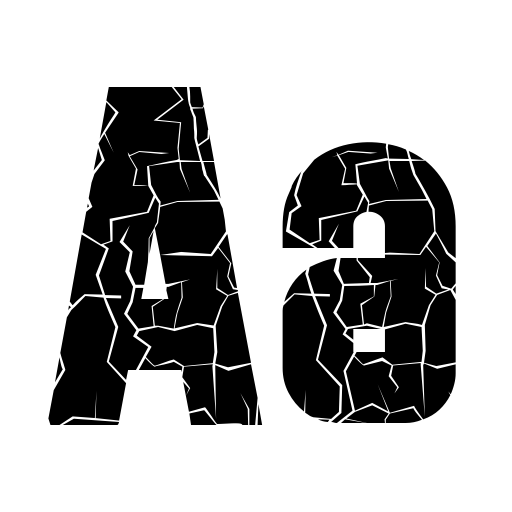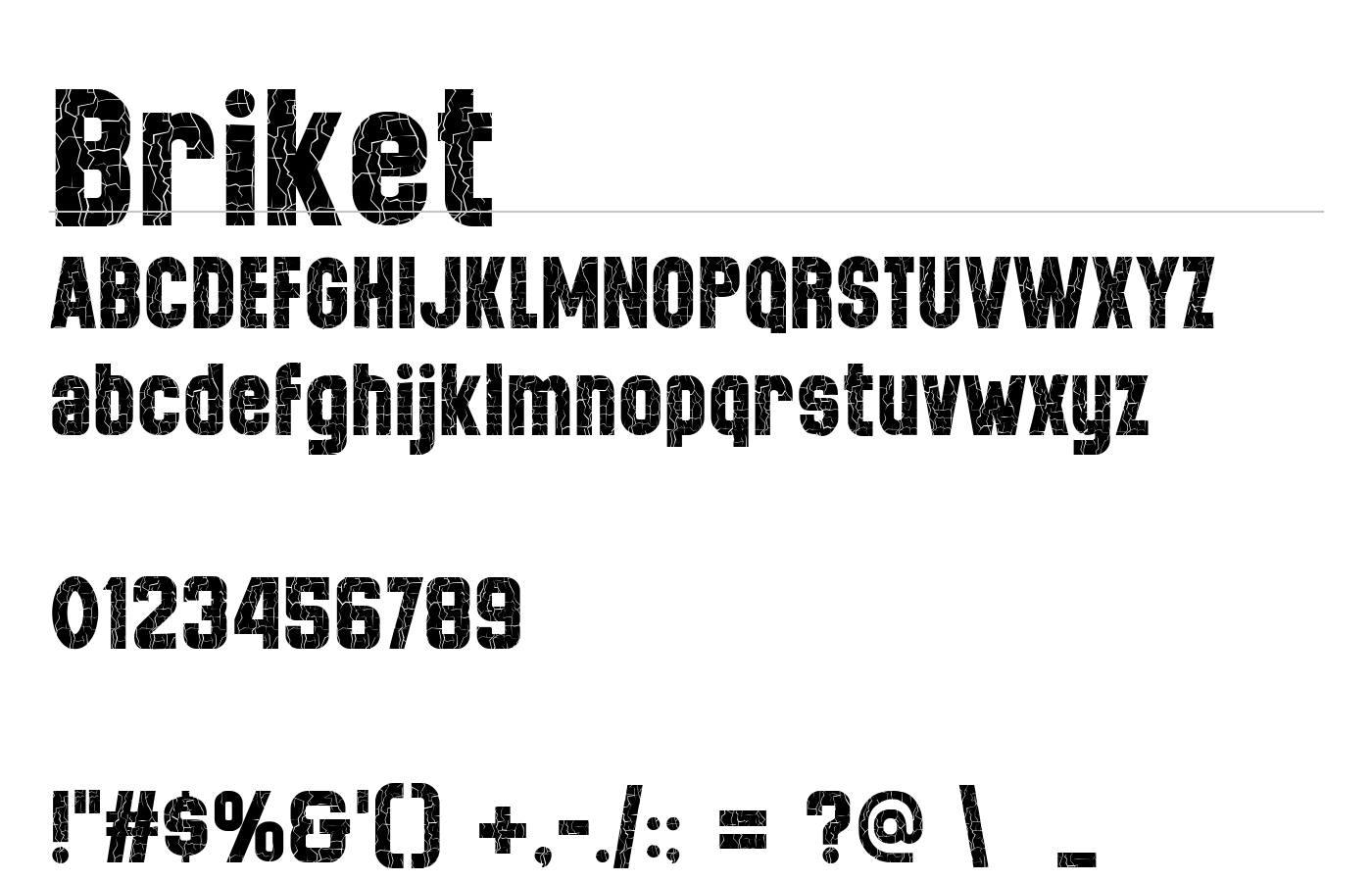
Briket is a bold, condensed sans serif font with a rugged, cracked texture that gives it a strong, industrial feel. Its heavy weight and tight spacing make it ideal for eye-catching headlines, logos, and posters where a gritty, impactful style is desired. This font works well for brands or designs that want to convey toughness, durability, and urban edge.
Briket Font
About Briket Font
| Font family | Briket Font |